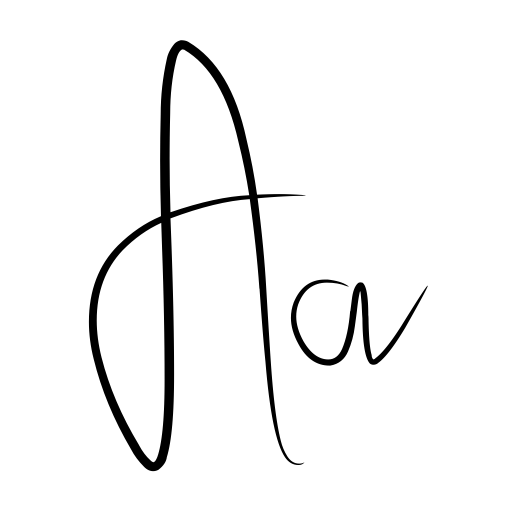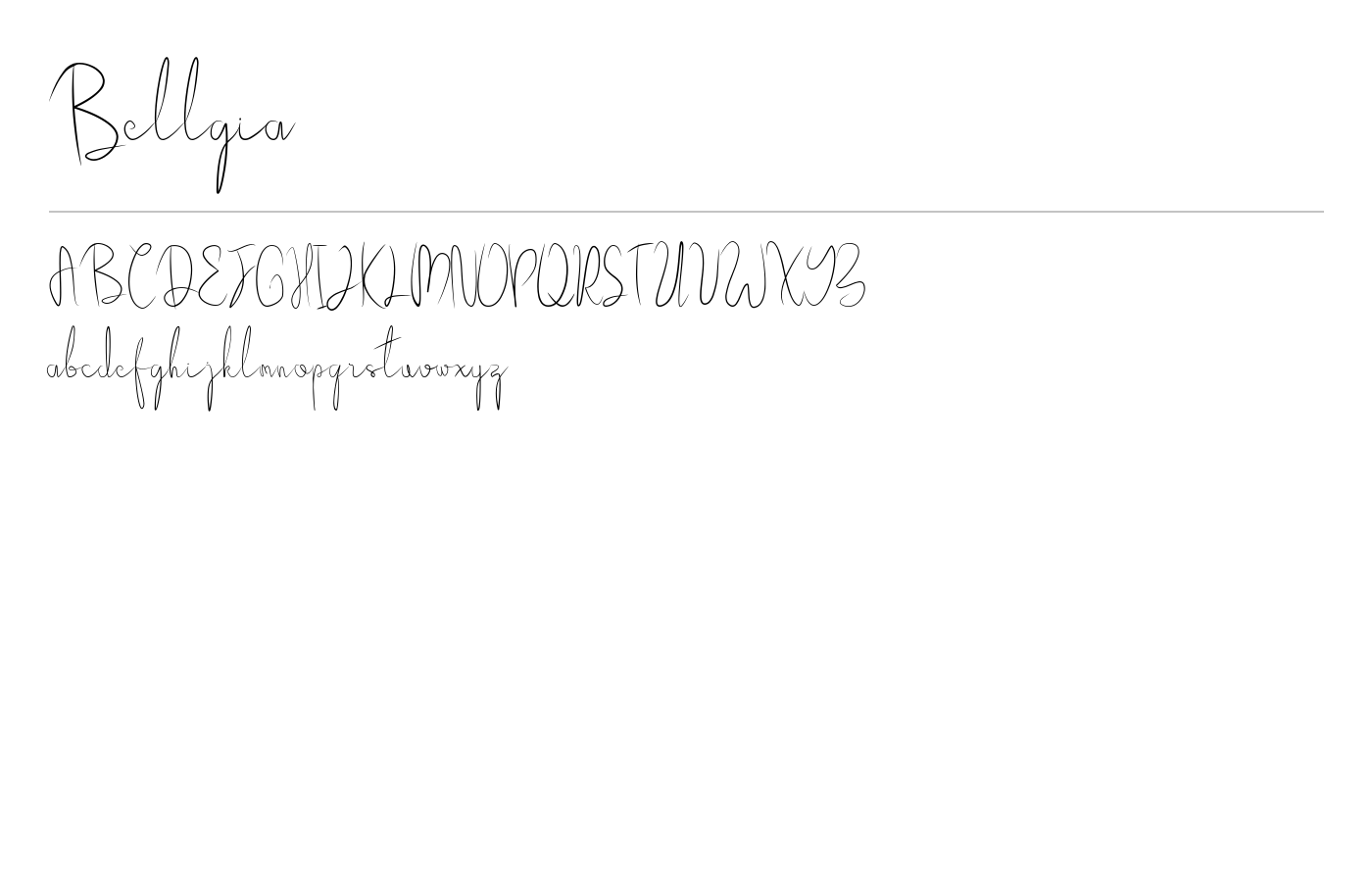
Bellgia is a delicate, handwritten script font characterized by its thin, fluid strokes and tall, slender letterforms. Its narrow width and airy spacing create an elegant, whimsical feel perfect for invitations, branding, and creative projects that seek a personal, sophisticated touch. This font works best in decorative uses where a light, artistic style can shine without overwhelming the design.
Bellgia Font
About Bellgia Font
| Font family | Bellgia Font |
| Designer | Muksal Creative. 2019 |